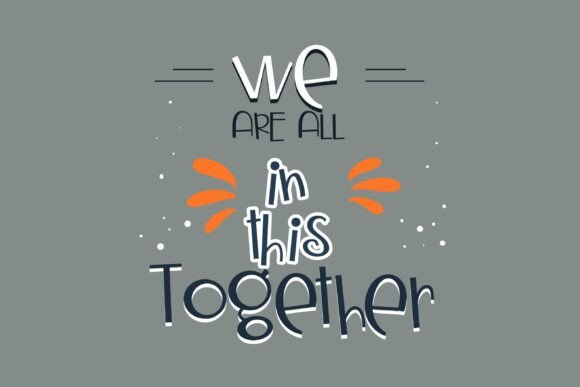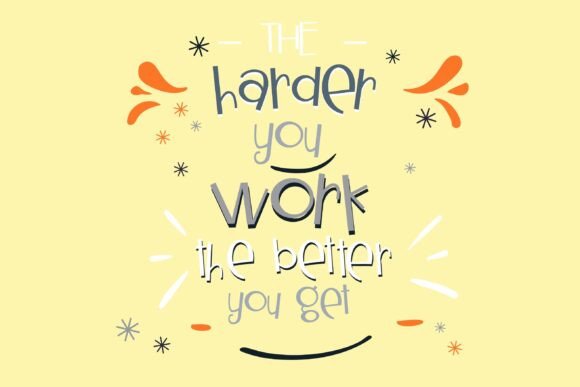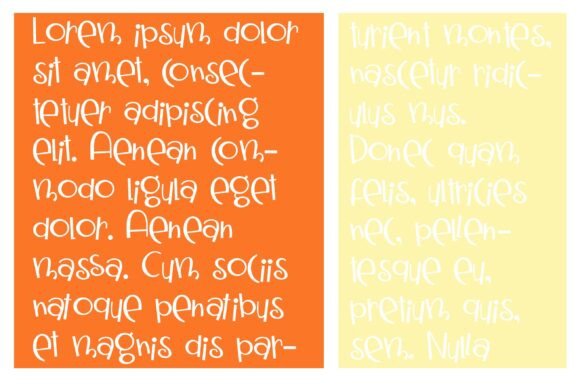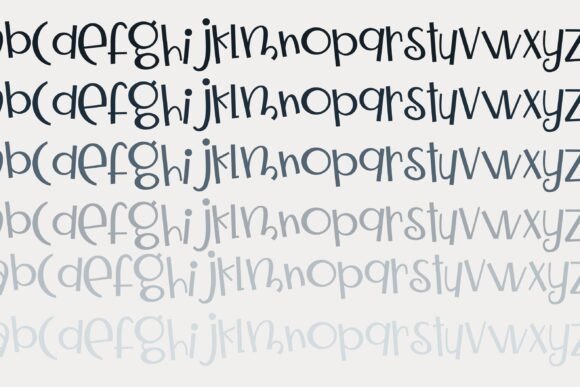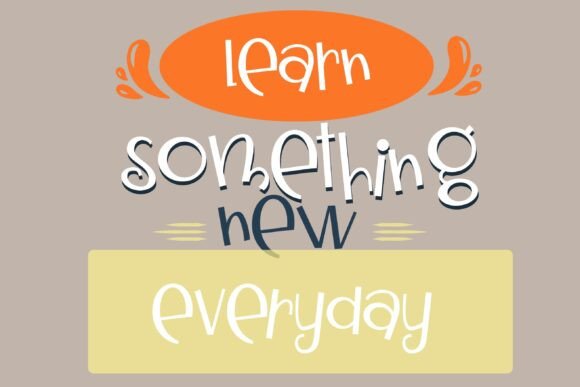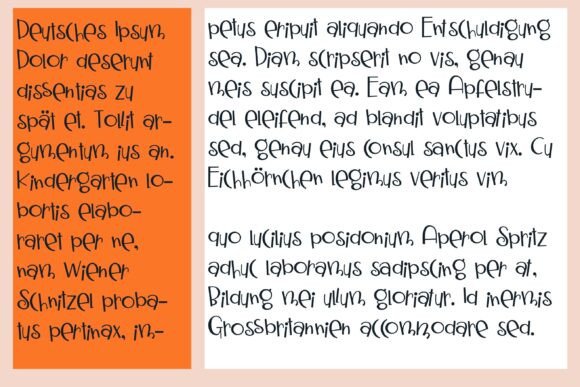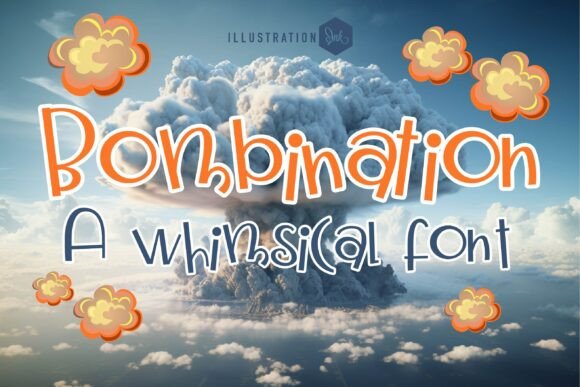
Bombination Font: A Whimsical Sans Serif for Creative Projects
In the world of typography, fonts play a crucial role in conveying the tone and personality of a message. For designers and crafters, finding the perfect font can make all the difference in creating visually appealing and engaging projects. One such font that has gained popularity for its unique charm is the Bombination Font. In this article, we’ll explore the features and uses of this hand-crafted font, and why it’s a great addition to your typography collection.
What is Bombination Font?
Bombination Font is a whimsical sans serif font with a bouncy baseline, giving it a lively and energetic feel. As a hand-crafted font, it’s designed to mimic the imperfections and quirks of handwritten text, making it perfect for projects that require a personal touch. The font’s unique character lies in its irregular baseline, which gives it a bouncy and playful appearance.
Characteristics of Hand-Crafted Fonts
Hand-crafted fonts, like Bombination Font, are designed to look like they were written by hand. They often feature irregularities in letterforms, spacing, and alignment, which give them a distinctive and charming appearance. Some common characteristics of hand-crafted fonts include:
- Irregular baselines: Hand-crafted fonts often have baselines that are not perfectly straight, giving them a more organic and human feel.
- Unique letterforms: Hand-crafted fonts can feature unique and quirky letterforms, which add to their charm and personality.
- Variations in line width: Hand-crafted fonts can have varying line widths, which give them a more handmade appearance.
Uses of Bombination Font
Bombination Font is a versatile font that can be used for a variety of creative projects, including:
- Invitations and greeting cards: The font’s whimsical and playful nature makes it perfect for invitations, birthday cards, and other celebratory messages.
- Signs and posters: Bombination Font can add a touch of personality to signs, posters, and flyers, making them more eye-catching and engaging.
- Digital graphics: The font can be used for digital graphics, such as social media posts, blog headers, and email newsletters.
- Crafting and scrapbooking: Bombination Font is a great addition to any crafter’s or scrapbooker’s toolkit, adding a personal touch to handmade projects.
Why Choose Bombination Font?
So, why choose Bombination Font for your creative projects? Here are a few reasons:
- Unique and eye-catching: The font’s bouncy baseline and quirky letterforms make it stand out from more traditional fonts.
- Versatile: Bombination Font can be used for a wide range of projects, from formal to informal.
- Easy to read: Despite its irregularities, Bombination Font is easy to read, making it perfect for body text and headlines.
Tips for Using Bombination Font
To get the most out of Bombination Font, here are a few tips:
- Use it sparingly: Bombination Font is best used sparingly, as it can be overwhelming if overused.
- Pair it with a neutral font: Pair Bombination Font with a neutral font, such as a sans serif or serif font, to create visual interest.
- Experiment with colors: Bombination Font looks great in a variety of colors, so don’t be afraid to experiment and find the perfect hue for your project.
Bombination Font is a unique and versatile font that’s perfect for designers and crafters looking to add a touch of personality to their projects. With its bouncy baseline and quirky letterforms, it’s sure to make your projects stand out. Whether you’re creating invitations, signs, or digital graphics, Bombination Font is a great choice. So why not give it a try and see the difference it can make in your creative projects?